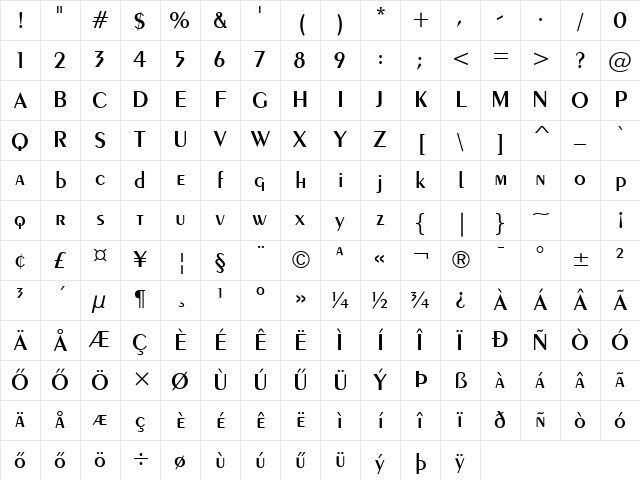
Exotic-350 DmHU Demi-Bold Free Font
Exotic-350 DmHU Demi-Bold
Style: Demi-Bold
Design Context for Exotic-350 DmHU
Exotic-350 DmHU is a composed and adaptable typeface that performs quietly and consistently across a wide range of design contexts. Its bold stroke weight gives it real presence on the page.